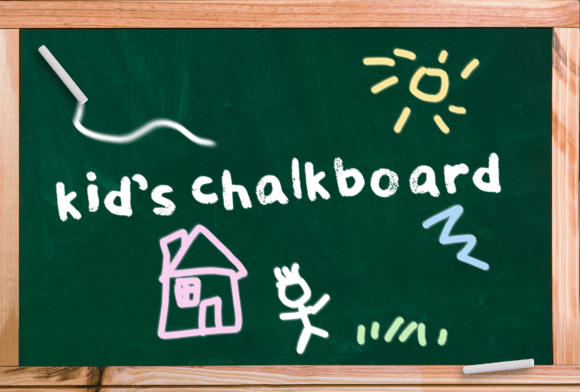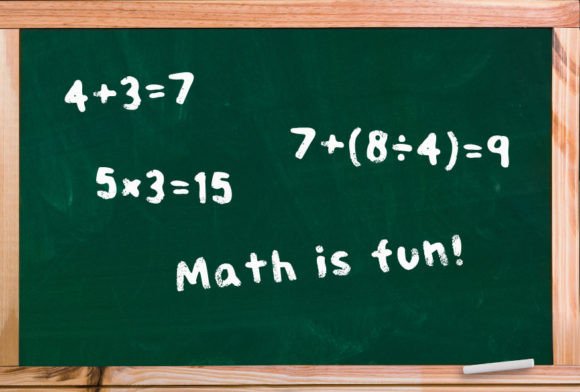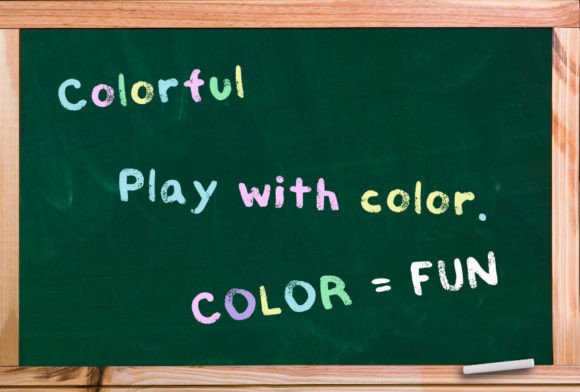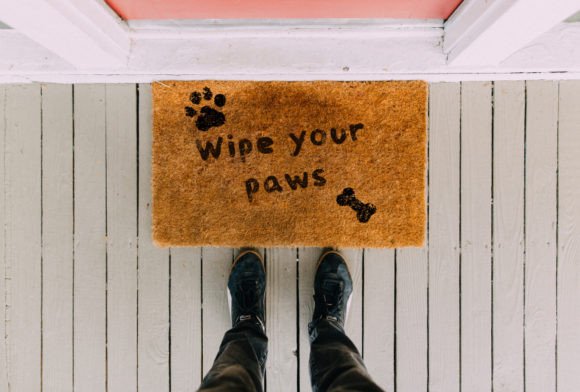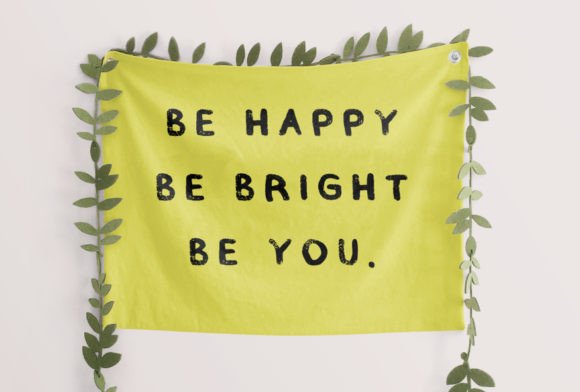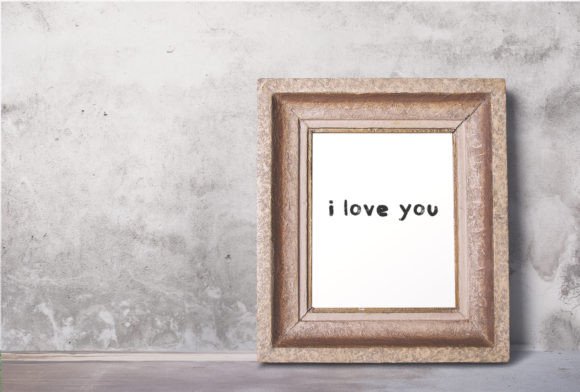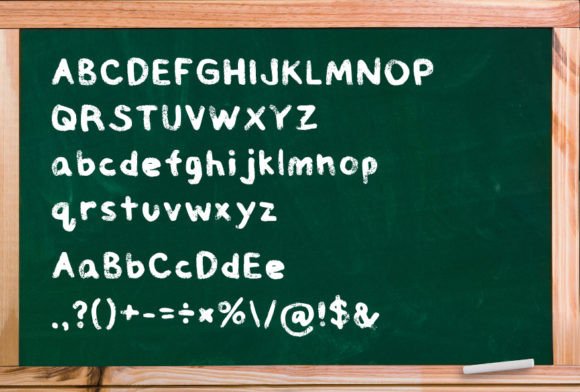
Do you remember those carefree days spent scribbling on the chalkboard in elementary school? The smell of chalk, the sound of squeaky erasers, and the joy of creating something new every day. For many of us, those moments sparked a lifelong passion for creativity and self-expression. As designers, we’re constantly looking for ways to tap into that same sense of wonder and excitement in our work.
That’s where the Kids Chalkboard Font comes in – a handwritten chalk font that’s perfect for children-related projects. Its bold, fun, and stylish design makes it ideal for creating cute party invitations, printed quotes, standout packaging, or cool t-shirts. With the Kids Chalkboard Font, you can add a touch of nostalgia and whimsy to your designs, making them stand out from the crowd.
Kids Chalkboard Font Key Features
- Unique Hand-Drawn Style: The font features a distinctive hand-drawn, chalkboard-inspired design that adds a playful touch to any text.
- Size Range: The font comes in a range of sizes, from 8pt to 100pt, making it suitable for various design applications.
- Resolution: Designed for high-resolution displays, the font maintains its quality at resolutions up to 300 DPI.
- Customizable: The font includes a range of customization options, including bold, italic, and bold-italic styles, to suit different design needs.
- Perfect for Educational and Creative Projects: The Kids Chalkboard Font is ideal for designing educational materials, children’s books, and other creative projects that require a playful and engaging aesthetic.
Kids Chalkboard Font Review
I recently had the chance to work with the Kids Chalkboard Font, and I must say it’s a font that brings back memories of childhood. The playful, handwritten feel of this font is perfect for creating a whimsical atmosphere in designs.
- Cute and childlike aesthetic
- Easy to read, even in smaller font sizes
- Works well for headings, titles, and short paragraphs
- May not be suitable for formal or professional designs
- Limited versatility for use in body text
- May not be suitable for high-end printing
Overall, I think the Kids Chalkboard Font is a fun and creative addition to any design project. While it may not be the best choice for every situation, it’s perfect for adding a touch of whimsy and playfulness to your designs. With its cute aesthetic and ease of use, it’s a great font for anyone looking to create a fun and engaging atmosphere.
The “Kids Chalkboard Font” is perfect for creating playful and whimsical designs. Use it for:
- Education and learning materials, such as worksheets and lesson plans.
- Summer camp and activity programs.
- Any design that needs a fun and playful touch.
Alternatives to Kids Chalkboard Font
Pacifico is a beautiful script font that resembles handwriting. It’s perfect for creating a whimsical and playful atmosphere. This font is ideal for use in invitations, posters, and other materials where a casual and creative tone is desired.
Compared to Kids Chalkboard Font, Pacifico has a more elegant and refined look. While Kids Chalkboard Font is more rustic and textured, Pacifico is smoother and more polished.
Great Vibes is a modern calligraphy font that exudes a sense of sophistication and elegance. It’s perfect for use in wedding invitations, menus, and other materials where a touch of luxury is desired.
Compared to Kids Chalkboard Font, Great Vibes has a more formal and polished look. While Kids Chalkboard Font is more casual and playful, Great Vibes is more refined and sophisticated.
Alex Brush is a beautiful script font that resembles hand-painted brushstrokes. It’s perfect for creating a unique and artistic atmosphere. This font is ideal for use in posters, flyers, and other materials where a creative and expressive tone is desired.
Compared to Kids Chalkboard Font, Alex Brush has a more organic and expressive look. While Kids Chalkboard Font is more textured and rustic, Alex Brush is more fluid and artistic.